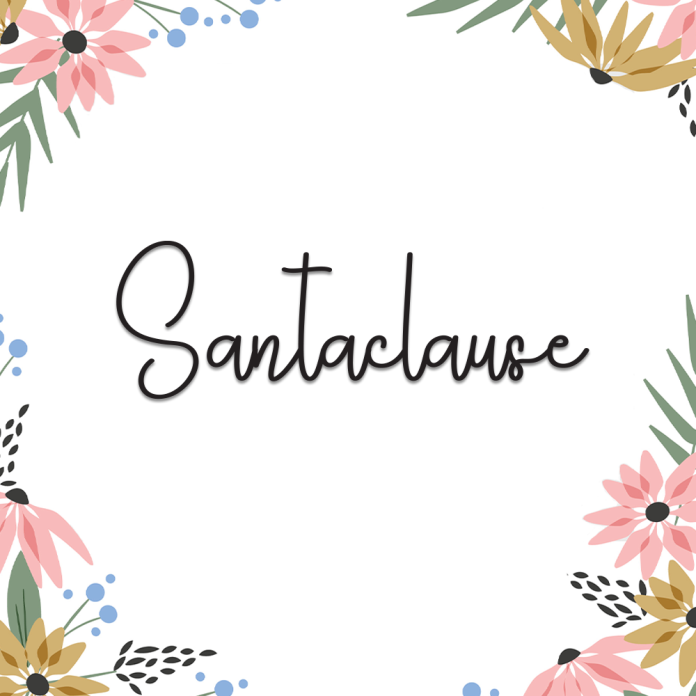
Santaclause is a cheerful and charming handwriting font inspired by the joyful spirit of the holiday season. Its smooth, playful strokes give off a warm, handwritten feel – just like a letter to Santa himself!
Handwriting style with festive personality
Perfect for Christmas cards, gift tags, invitations, and seasonal branding
Whimsical letterforms with a personal touch
Add a sprinkle of Christmas cheer to your design with the delightful charm of Santaclause!